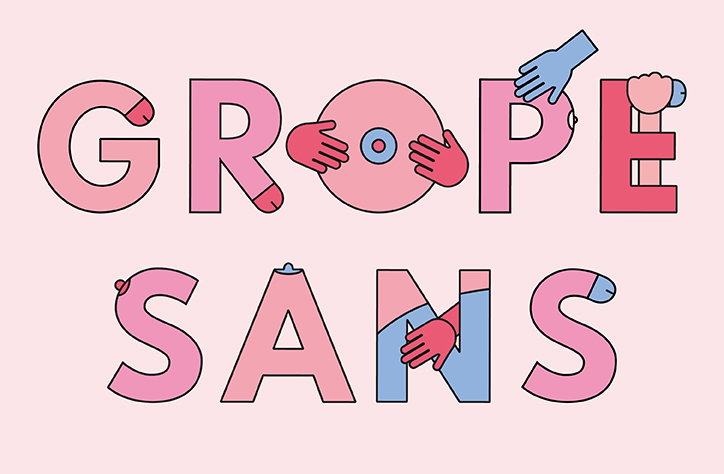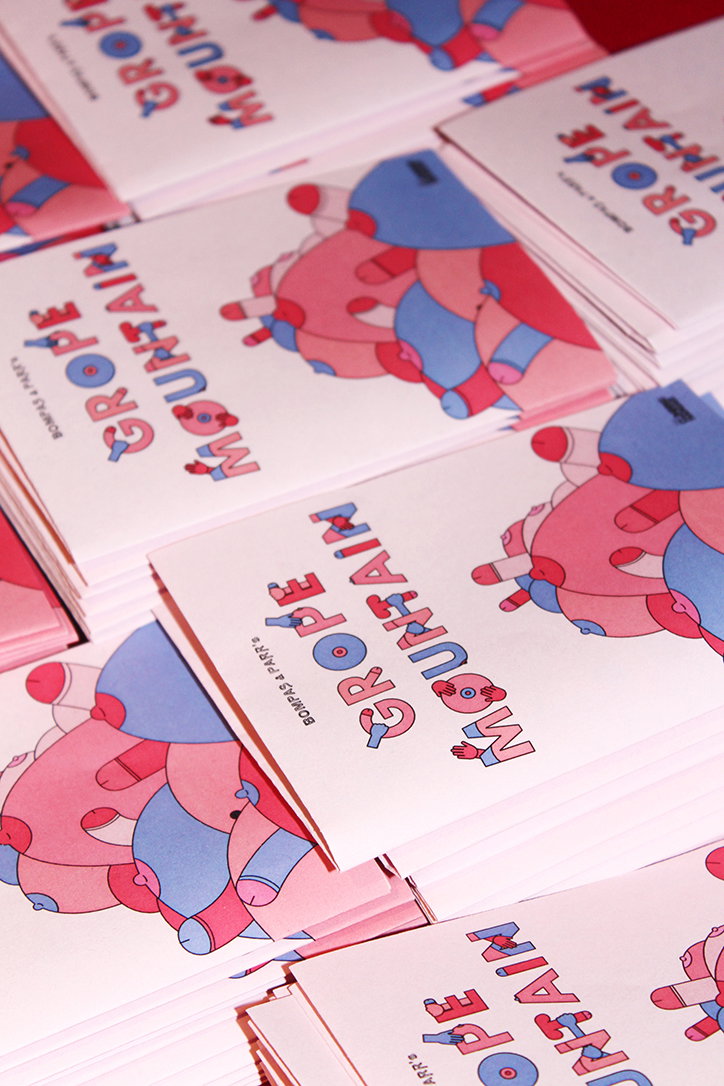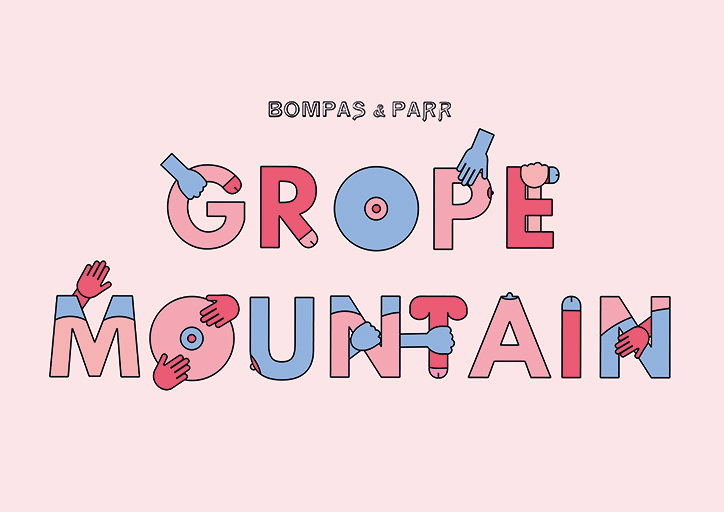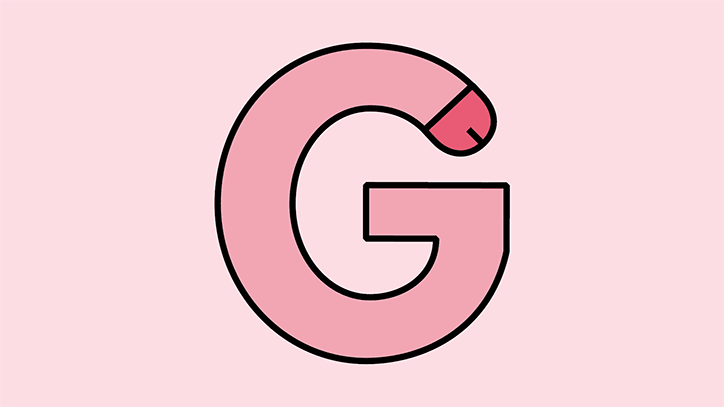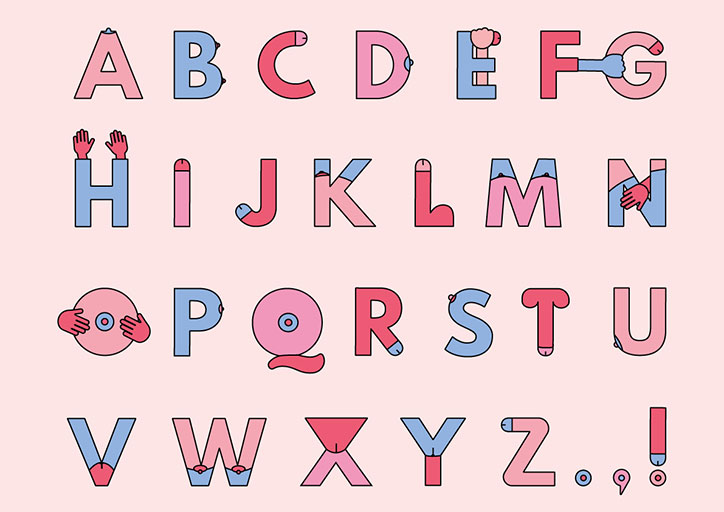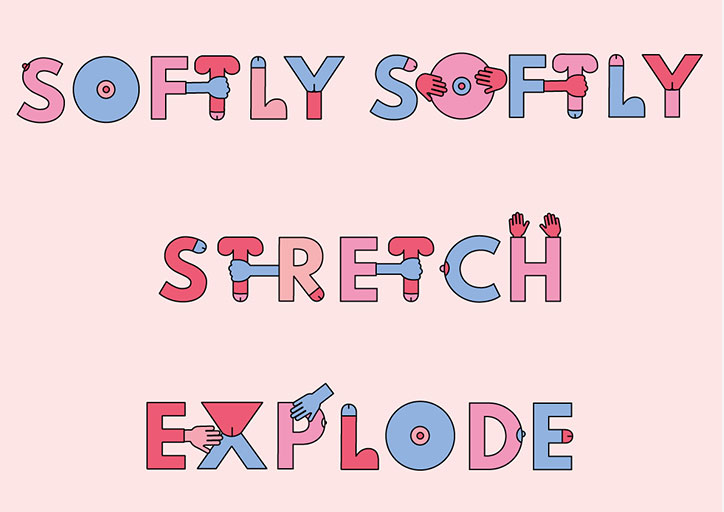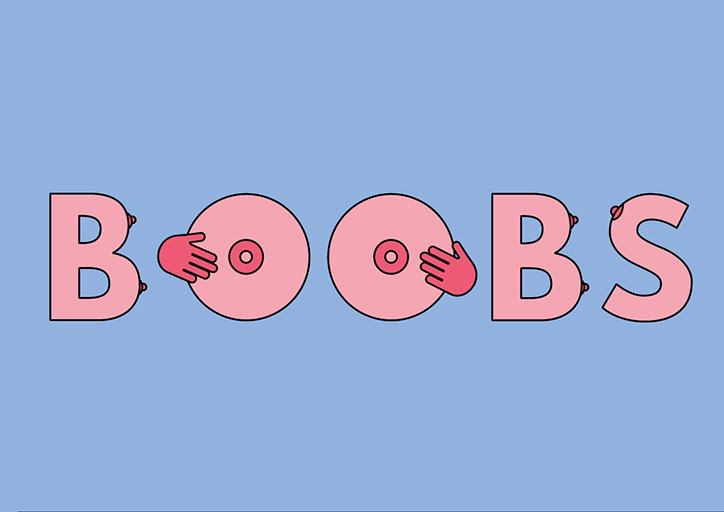
Grope Sans: a very rude typeface by Bompas & Parr
Bompas & Parr: Grope Sans
Bompas & Parr has released Grope Sans, a very rude typeface specially for Valentine’s Day. The face is inspired by the studio’s installation Grope Mountain – a climbing wall where the traditional holds are replaced with ones shaped like genitals. As such, each letter features anatomically themed appendages, from a small nipple on the P to the less subtle penis-shaped T, plus interactive hands.
The studio’s graphic designer Flo Fairweather clearly had a lot of fun on this project. “It’s surprisingly easy to turn most type forms into penises, vaginas and breasts. There are up to three variations on each letter, so an even representation of male and female parts can be achieved with every word. Every minor adjustment I made was laughter-inducing.”
The style of the type was inspired by cartoons and uses soft, cheery colours to allow the designer to be as crude as possible while keeping it lighthearted. It’s used in event signage, maps and hand-outs to help climbers navigate the installation.
Bompas & Parr: Grope Sans